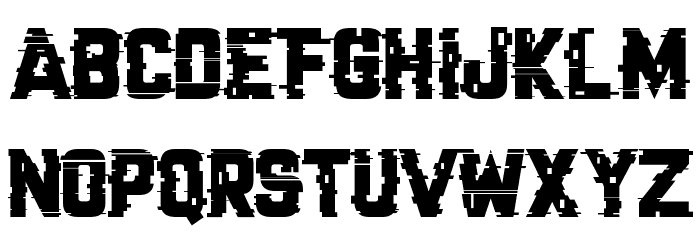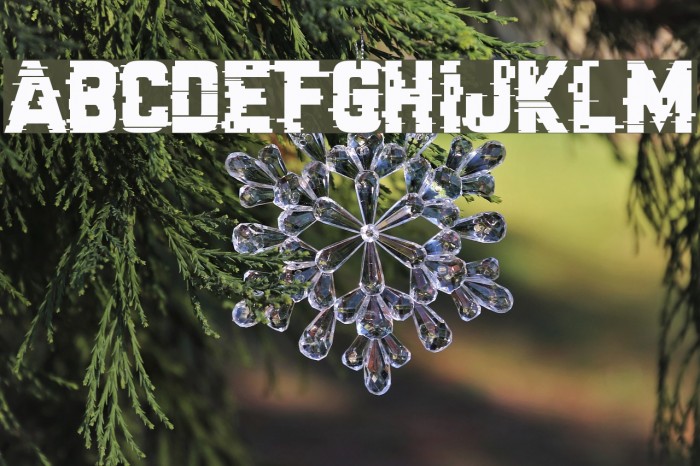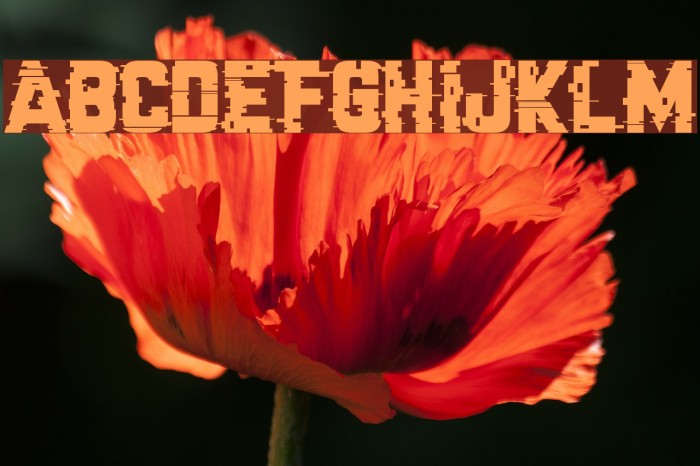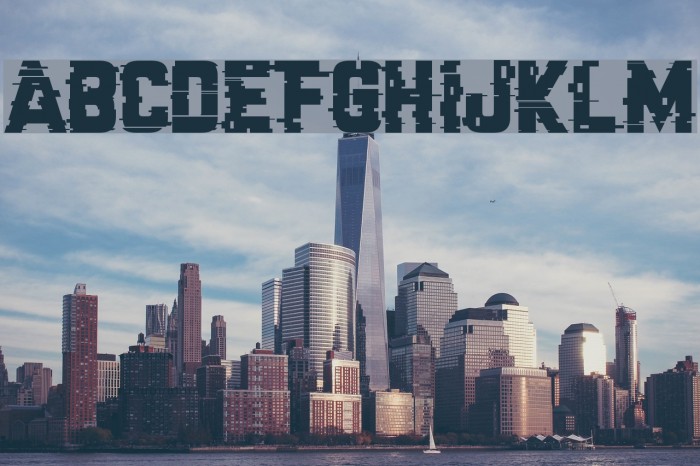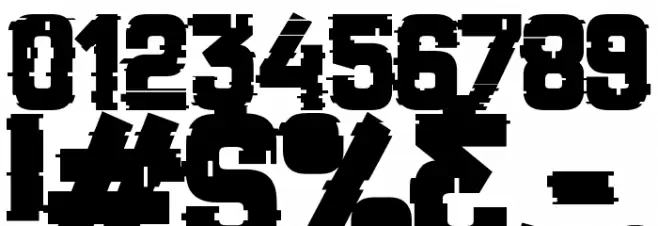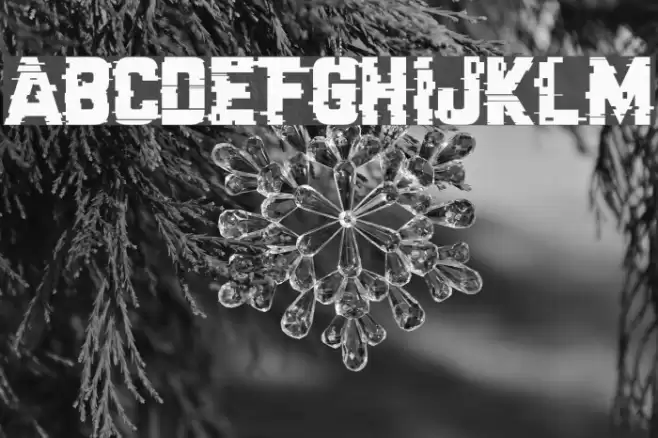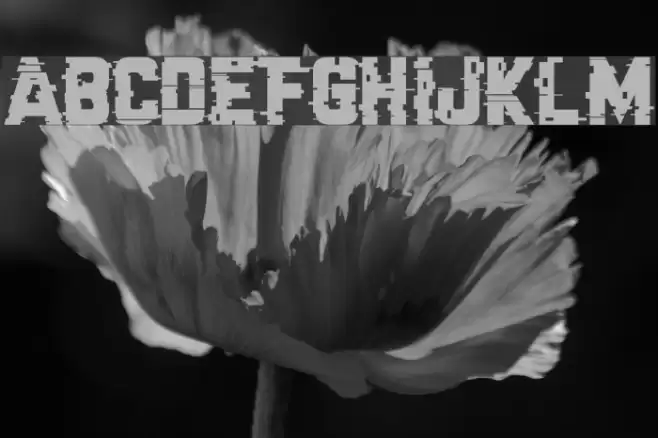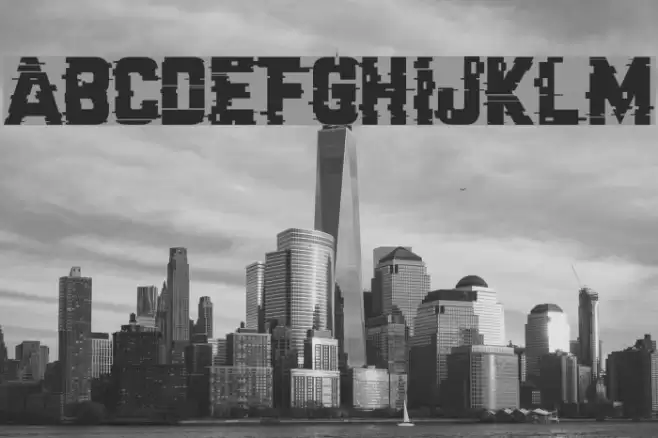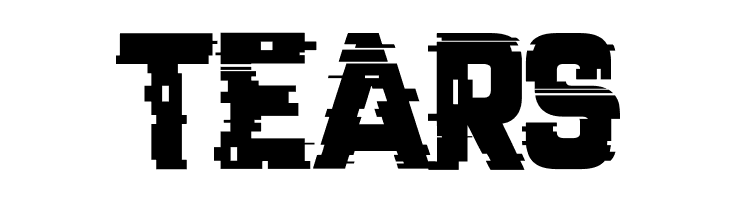
Cracked Code Font
This font features a bold, distressed style with a digital glitch effect that gives it a unique, edgy appearance. The uppercase letters are prominently displayed with a fragmented look, as if they are being distorted by a digital error. The characters are bold and blocky, with a consistent thickness throughout, contributing to a strong visual impact. The numbers and special characters follow the same glitchy aesthetic, making the font suitable for projects that require a modern, tech-inspired look. The overall design is eye-catching and ideal for creative projects that aim to convey a sense of disruption or innovation.
A bold, glitch-style font with a digital, distressed appearance.
- Proposed Projects: Ideal for tech-themed posters, video game graphics, digital art projects, and edgy branding materials.